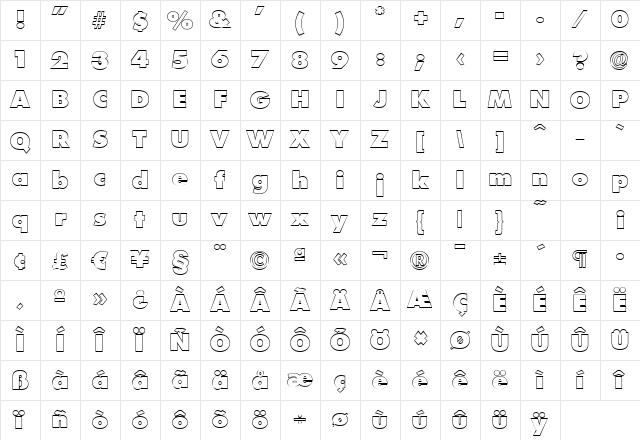
PeterBeckerOutline-Heavy Regular
Design Context for PeterBeckerOutline-Heavy
PeterBeckerOutline-Heavy is built around its visual character rather than neutral utility - its distinctive forms are designed to make an impression at display sizes.
Font Pairing: Pair with a clean neutral sans-serif for body copy to let PeterBeckerOutline-Heavy's character lead without overwhelming the composition.
Pro Tip: Use PeterBeckerOutline-Heavy exclusively at display sizes - it was designed to be seen, not read at length. Let a neutral companion handle body copy.